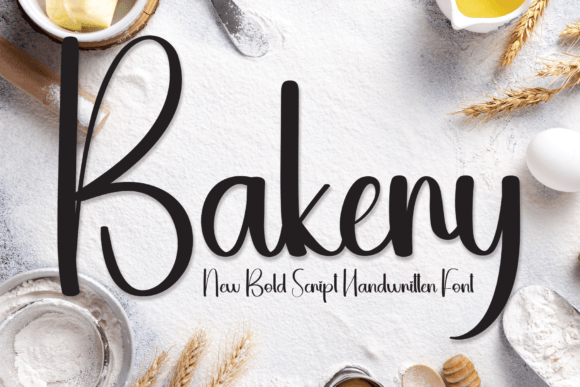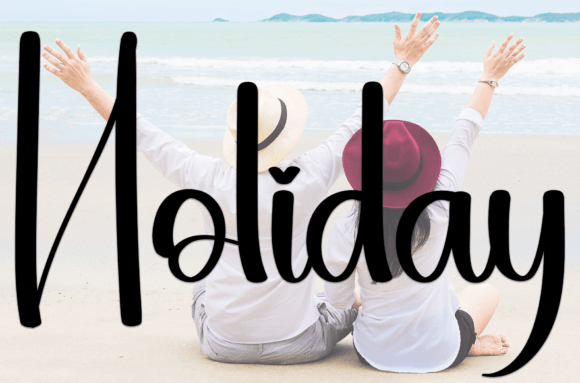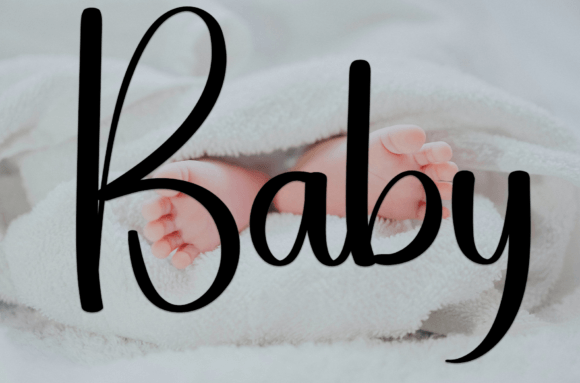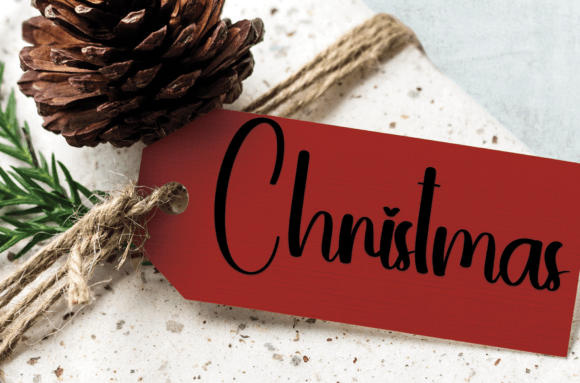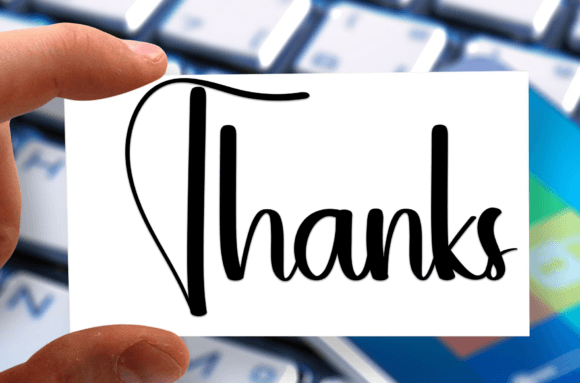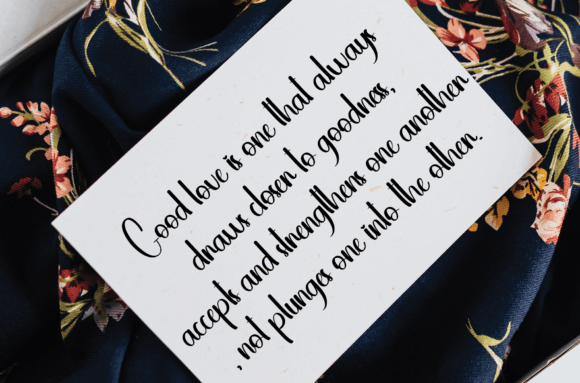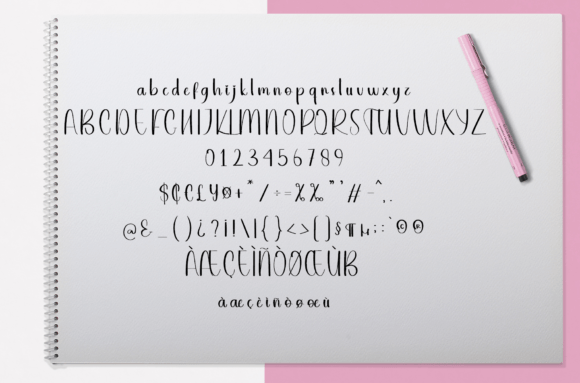
Bakery Font
About Bakery Font
Bakery is a sweet and friendly handwritten font that instantly adds a delightful charm to your designs. With its clean lines and natural strokes, Bakery brings a casual, joyful tone that feels personal and welcoming. Whether you’re crafting wedding invitations, greeting cards, branding, or social media visuals, this font brings a lovely touch that stands out without overwhelming your message.
Its hand-crafted appearance mimics real handwriting while maintaining excellent readability. This makes it ideal for both print and digital designs. If you’re looking for a font that balances playful elegance with simplicity, Bakery is a perfect choice.
A Font that Feels Like Home
Bakery has a cozy and relaxed personality. It’s ideal for designs that need to feel approachable and heartfelt. From romantic messages to friendly branding, the font works beautifully across a wide range of styles and tones. Its friendly curves and even spacing create a pleasant reading experience that keeps your audience engaged.
What sets Bakery apart is its ability to evoke emotion. The font feels like it was written with care—making it a great tool for any design that needs a human, expressive element.
Features of Bakery Font
• Uppercase & lowercase characters
• Numerals & punctuation
• Clean, well-balanced strokes
• Multilingual support
Bakery’s flexible style allows you to pair it with other fonts easily, whether you’re mixing it with bold sans-serifs or elegant scripts. It plays well with minimalistic layouts or more whimsical compositions, giving you full creative control.
Why Designers Love Bakery
Designers appreciate fonts that are both beautiful and functional. Bakery offers the best of both worlds—eye-catching, yet easy to work with. It provides a natural, organic look that doesn’t feel forced or artificial. Whether you’re a beginner creating crafts or a professional designing client work, Bakery adds just the right amount of warmth and style.
It’s the kind of font that becomes a go-to for many design needs, especially when you want to express friendliness, love, or celebration. Every project you use Bakery for will feel more personal, polished, and emotionally engaging.